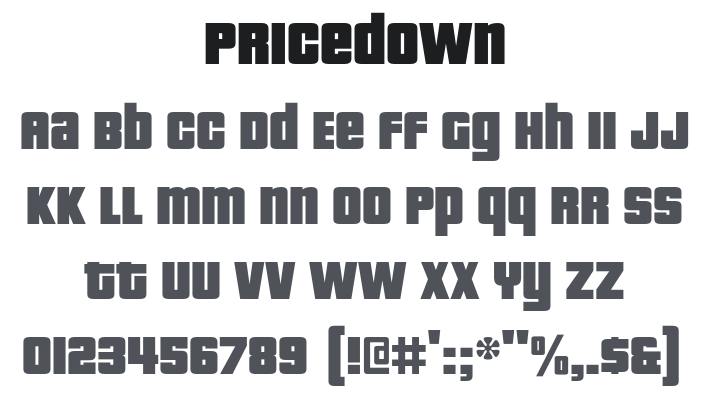
Pricedown Font
About Pricedown
Pricedown reimagines the heavy showcard style of the 1970s with a squared, modular rhythm made for screens, logos, and bold display work. Its geometric forms recall Pinto Flare yet feel distinctly modern…part arcade title, part TV spectacle. Swash tails and smart alternates add motion and character, letting letters connect, dive, and weave across the baseline. With nine weights from Hairline to Black, it spans minimal tech aesthetics to hard-edged authority while staying crisp and legible. Extensive language support includes Latin, Greek, Cyrillic, and Vietnamese. Recognizable yet refreshed, Pricedown brings confident, high-impact energy to any design that needs presence.